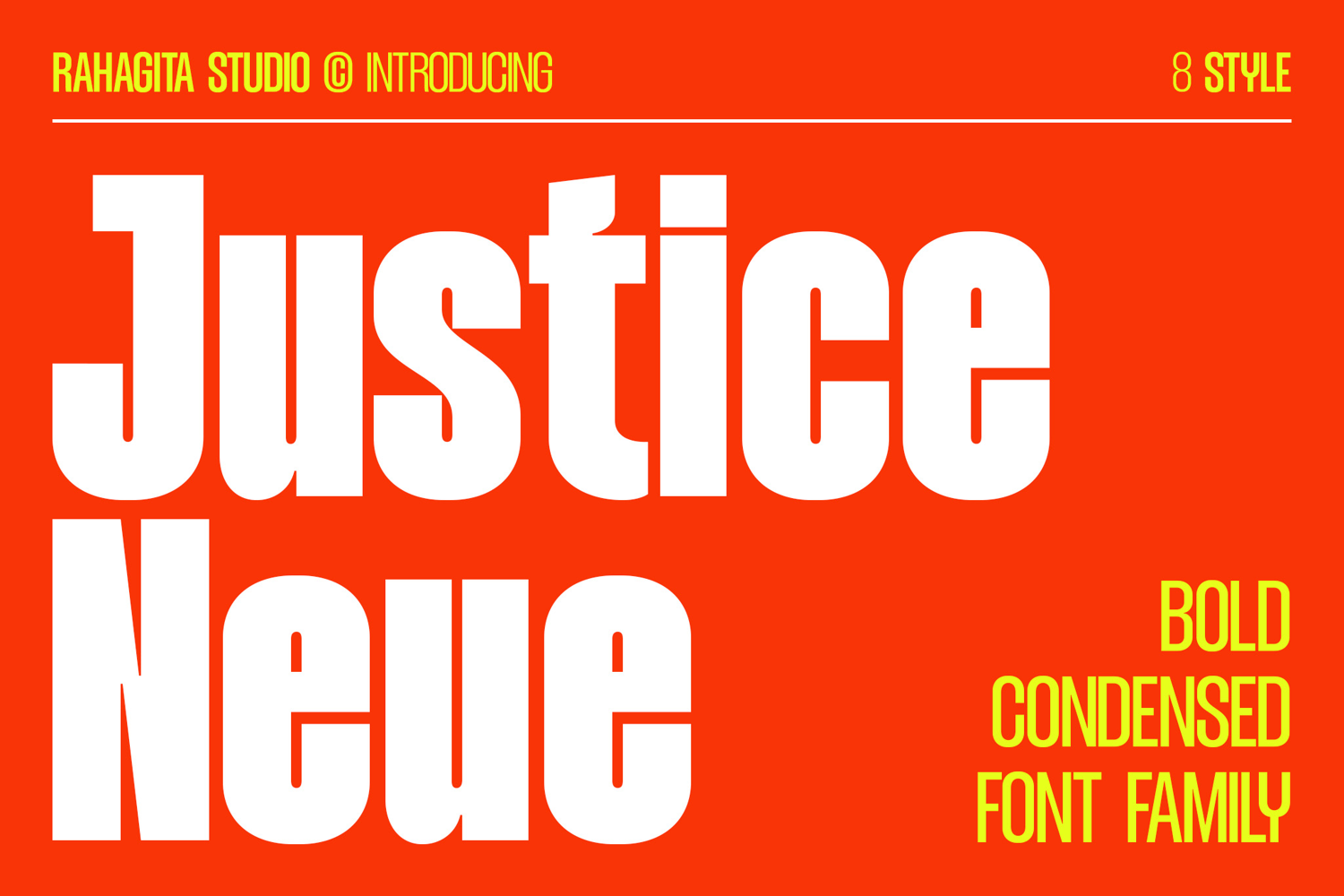
Justice Neue - Bold Condensed Font
Justice Neue is a bold, condensed display font family designed by Rahagita Studio for creatives who need serious typographic power across a wide range of weights. With 8 styles spanning from Thin to Extra Bold, Justice Neue is a complete condensed type system engineered for sharper visual impact — versatile enough to anchor a delicate editorial layout and forceful enough to dominate a container-side billboard or festival poster.
Its tightly spaced, vertically-driven letterforms maximize space efficiency while projecting authority and energy, making it an essential tool for designers working in streetwear, media, editorial, sports branding, signage systems, and digital UI.